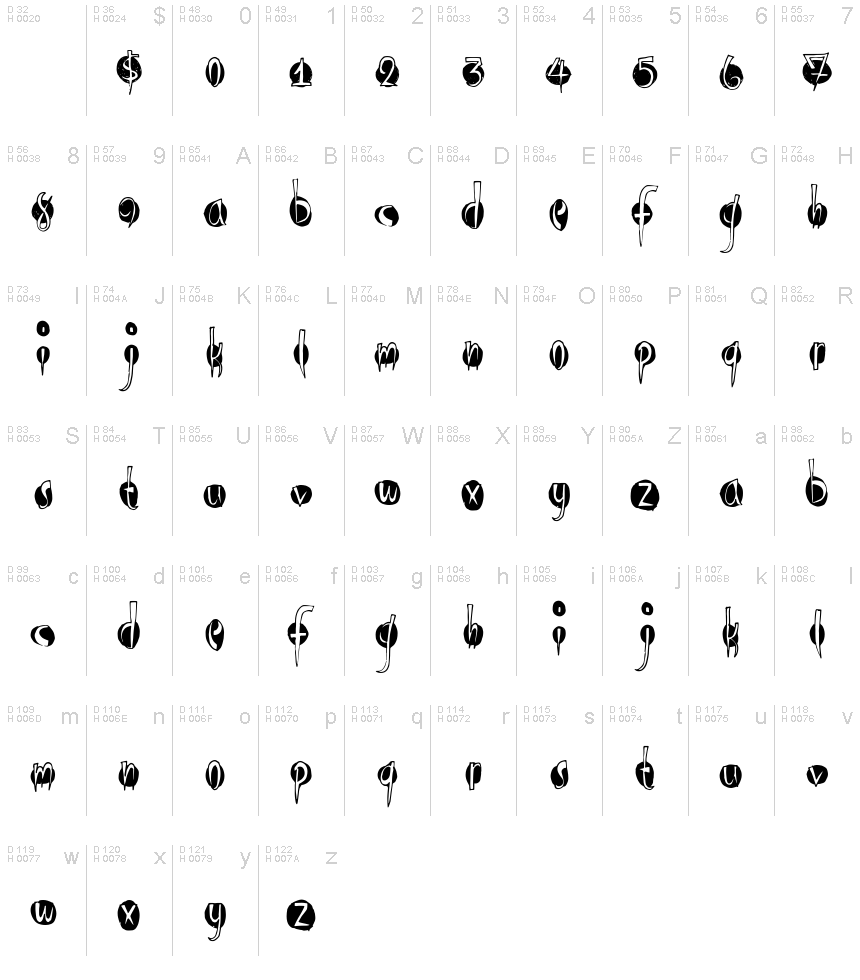
OpenLounge
Open Lounge is a distinctive display font that exudes a captivating essence of retro-futuristic charm. Crafted by Xerographer Fonts' Max Infeld, this condensed, decorative typeface showcases a delightful fusion of organic fluidity and angular precision. Its unique letterforms, with their flowing, seemingly handwritten-inspired shapes, lend a sense of warmth and approachability to the overall aesthetic.
The Open Lounge font is particularly well-suited for attention-grabbing headlines, eye-catching logotypes, and impactful branding applications. Its versatile nature allows for seamless integration into a wide array of design contexts, from retro-inspired layouts to modern, minimalist compositions. This font's striking visual presence can elevate any project, infusing it with a captivating, memorable character.